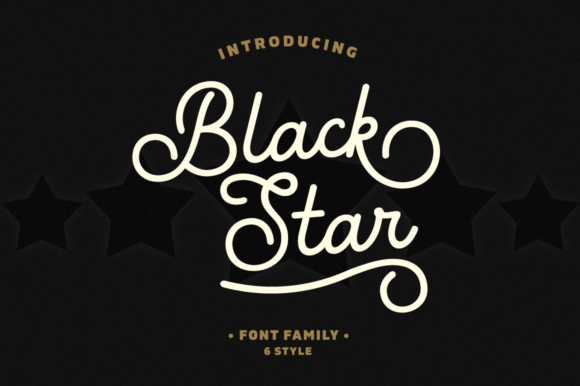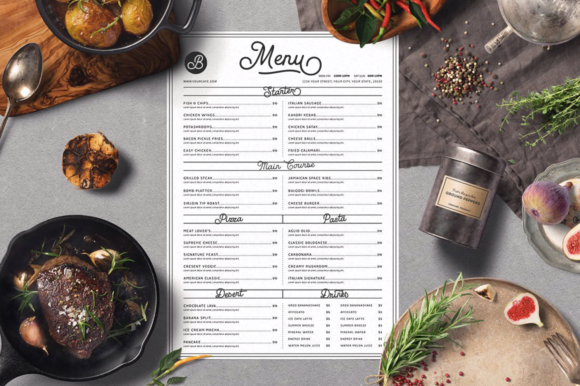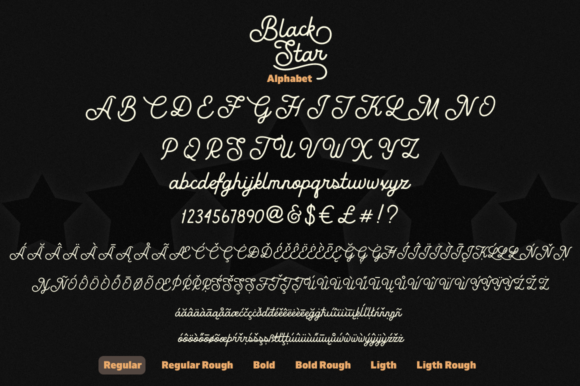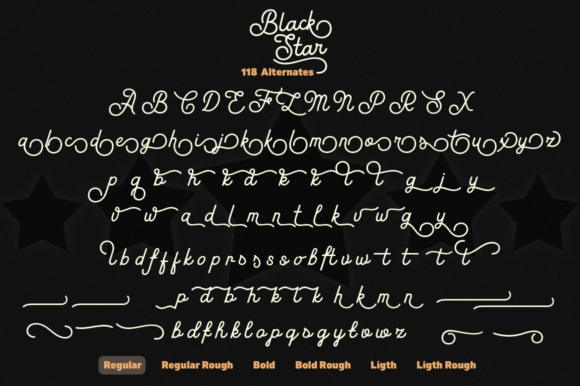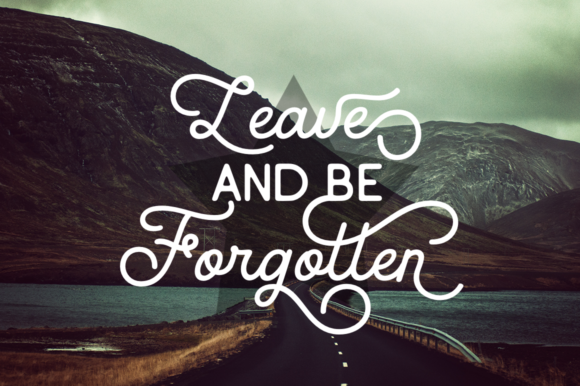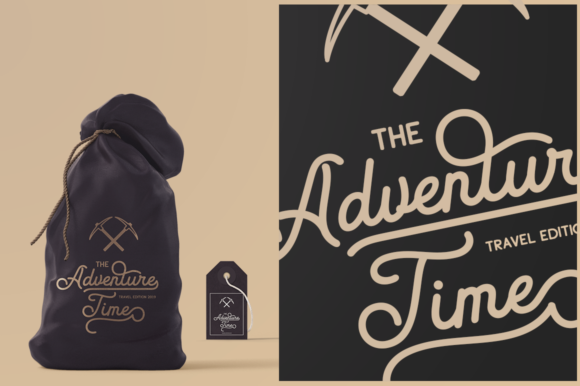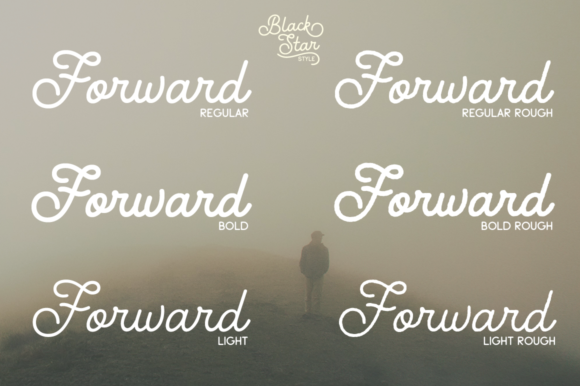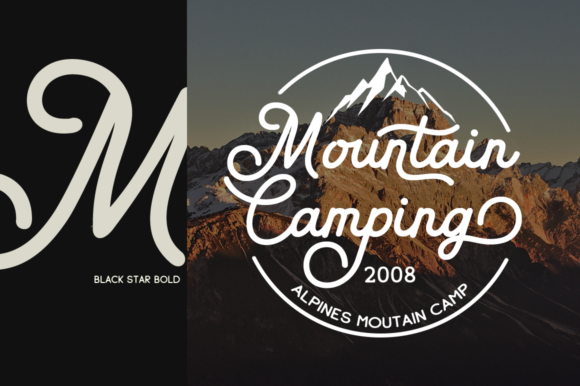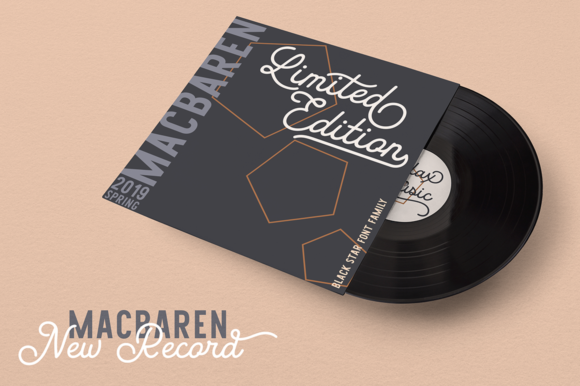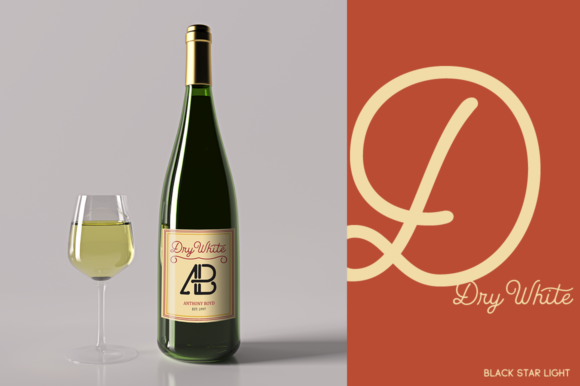
Black Star Family Font
About Black Star Family Font
The Black Star is an amazing monoline font family. It includes 6 unique styles which can be combined perfectly, giving you the opportunity to create unique designs in an instant.
It can be used for wedding invitations, logos, frames, small businesses, book covers, and much more!